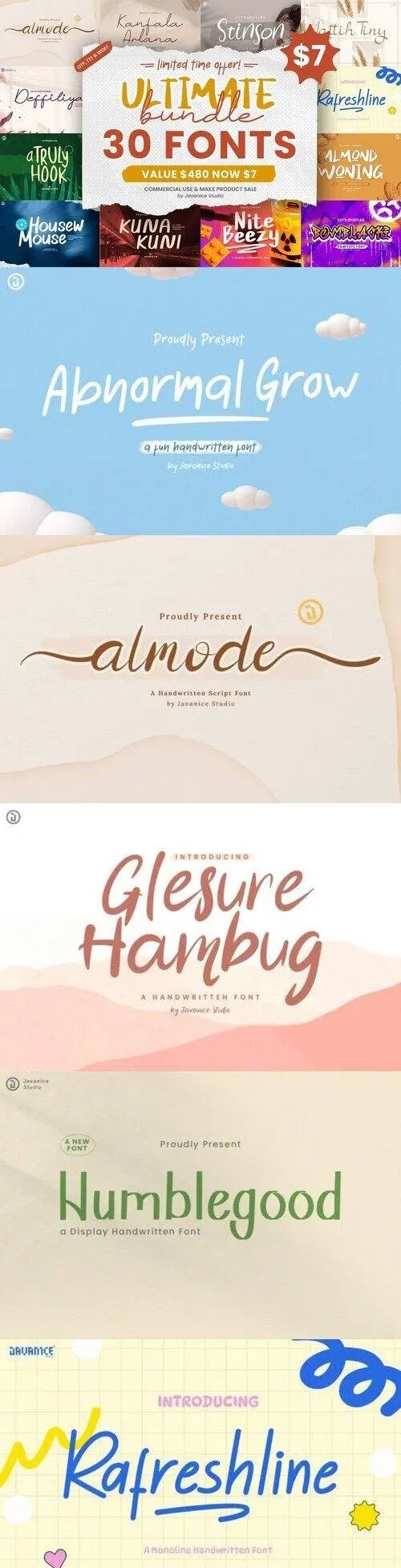
Ultimate Font Bundle
The Ultimate Font Bundle is a comprehensive collection of high-quality fonts designed to elevate your design projects. This bundle includes a variety of font styles, from elegant serifs to modern sans-serifs, catering to diverse creative needs.
• Multiple font weights and styles
• Versatile design options for various applications
Each font in this bundle is crafted with precision, ensuring that they are not only visually appealing but also highly functional. These fonts are suitable for both print and digital media, making them perfect for branding, logos, web design, and user interfaces.